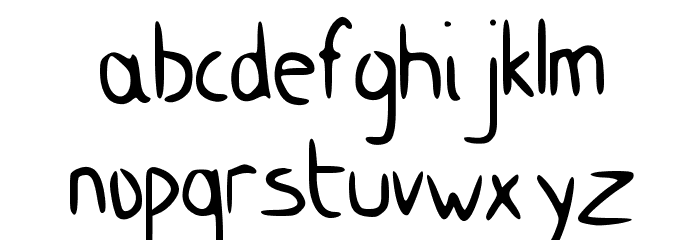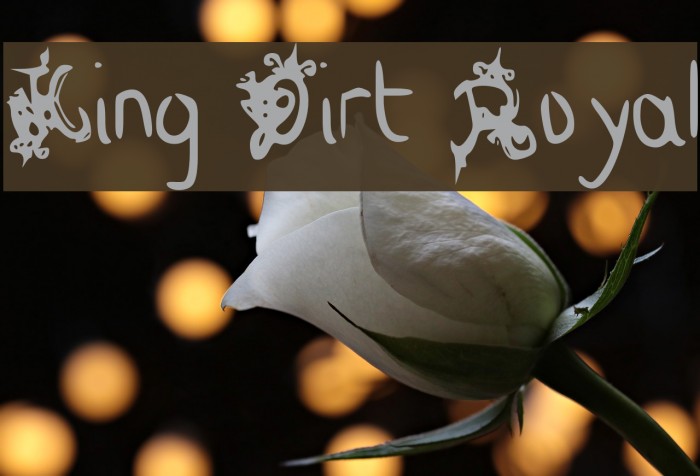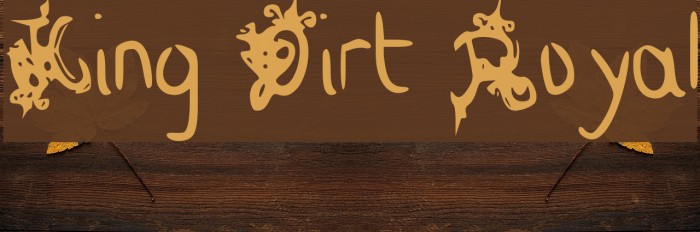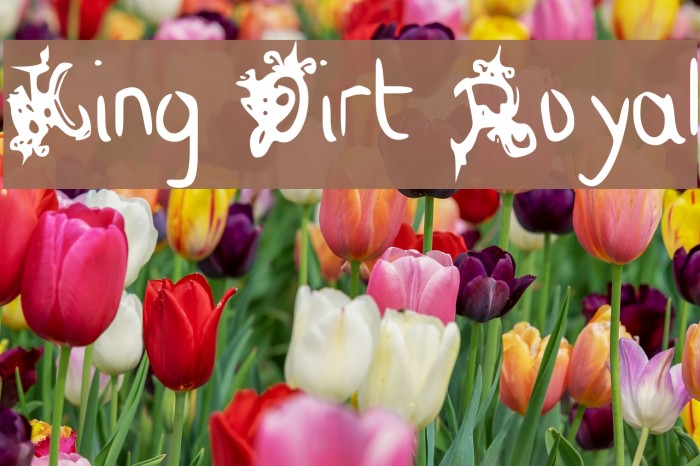
King Dirt Royal Font
This font features an elaborate and ornate uppercase design, with each letter adorned with intricate flourishes and decorative elements, giving it a regal and artistic appearance. The lowercase letters are more straightforward, with a casual, handwritten style that contrasts with the complexity of the uppercase. This duality offers versatility, making it suitable for projects that require both elegance and readability. The uppercase letters are highly decorative, resembling a blend of calligraphy and gothic styles, while the lowercase maintains a more modern and clean look.
An ornate and decorative font with intricate uppercase and casual lowercase styles.
- Proposed Projects: Ideal for invitations, branding, and artistic projects that require a touch of elegance and creativity.